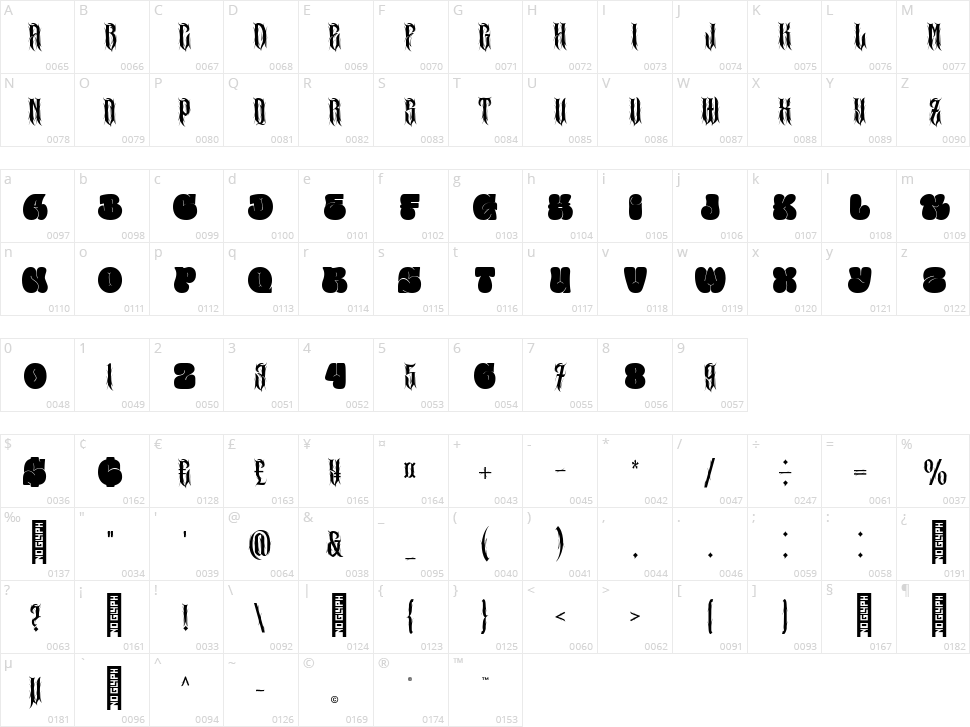
Bubble Core
Introducing Bubble Core Graffiti Mix Metal Font, a dynamic fusion of spiked metal aesthetics and playful bubble graffiti elements. This unique font brings together the raw energy of urban graffiti with the edgy sophistication of metal typography, resulting in a versatile and captivating typeface.